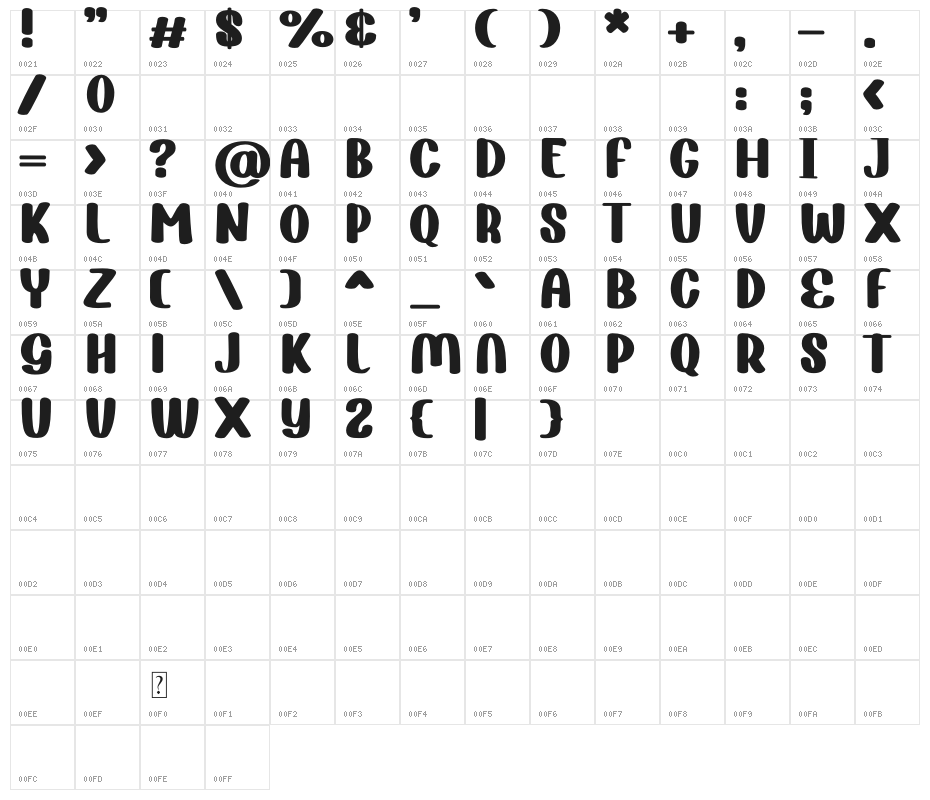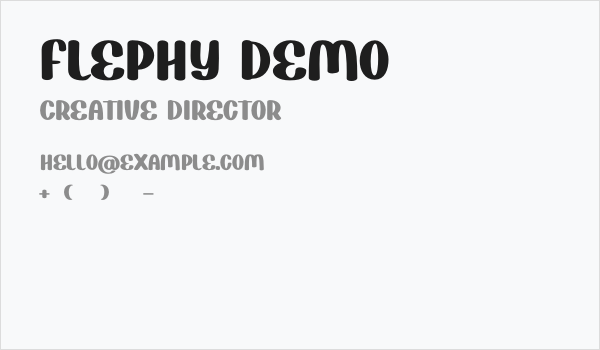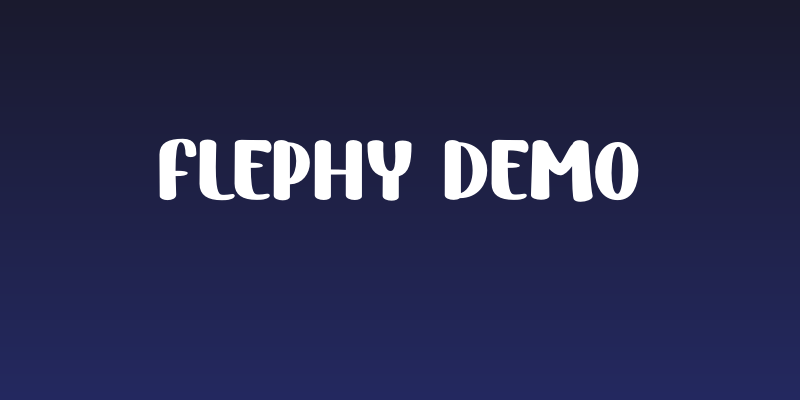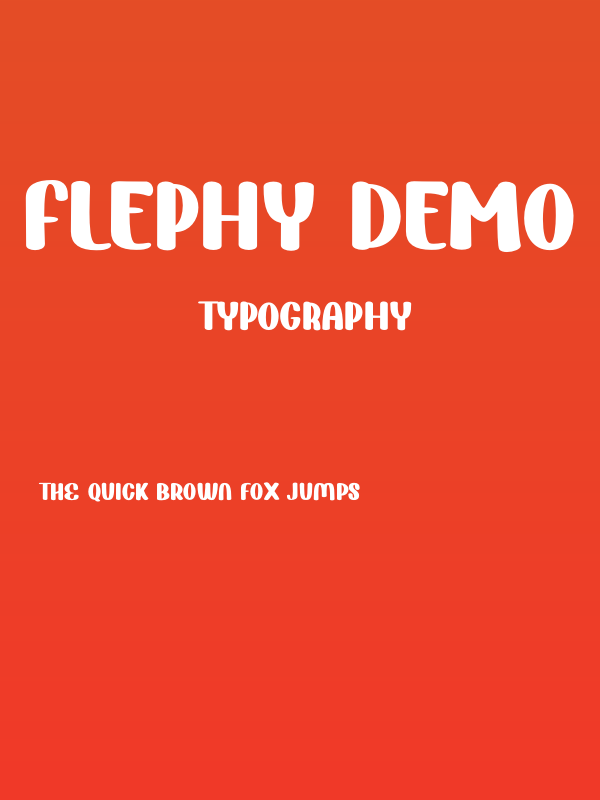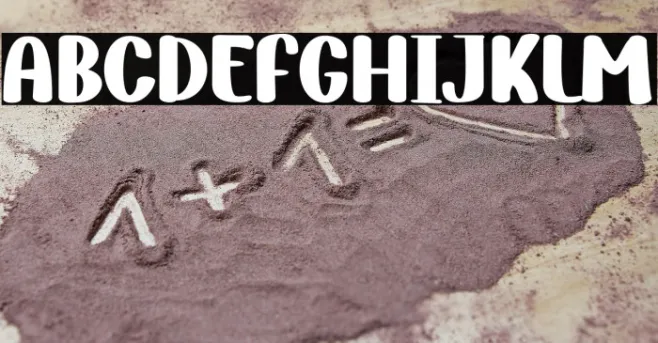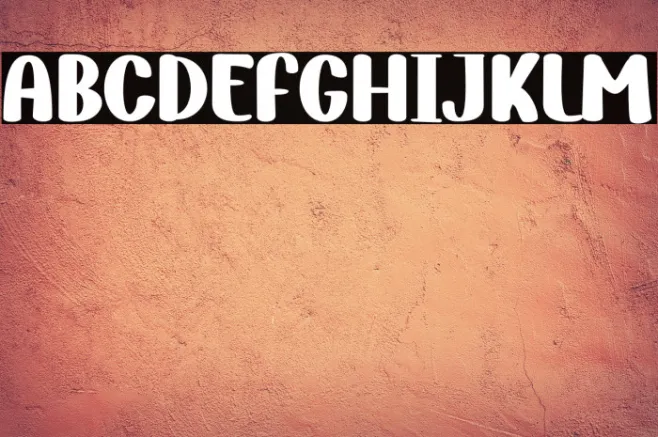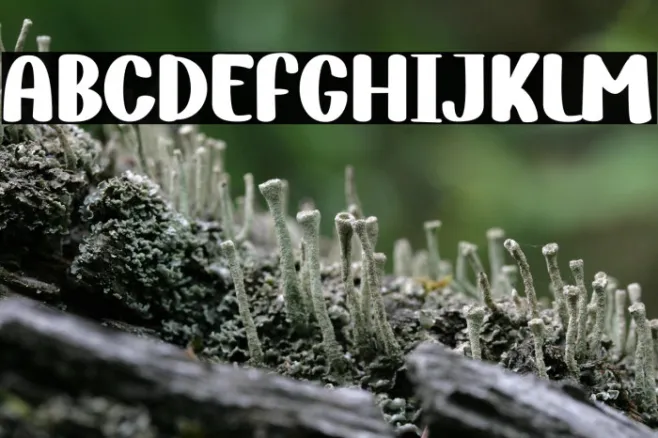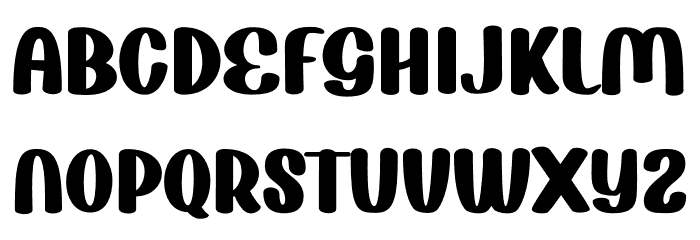
Flephy Demo Font
Flephy Demo Description
This font features bold, rounded characters with a playful and whimsical style. The letters have a consistent thickness, giving them a uniform appearance. The curves are smooth and exaggerated, adding a sense of fun and creativity. The overall design is eye-catching and suitable for projects that require a lively and energetic feel. The characters are well-spaced, ensuring readability while maintaining a compact look. This font is ideal for use in headlines, posters, and any design that aims to capture attention with its unique and vibrant style.
| Use Case | Headlines, Posters, Branding |
| Proposed Projects | Ideal for children's books, playful branding, event posters, and creative advertising. |